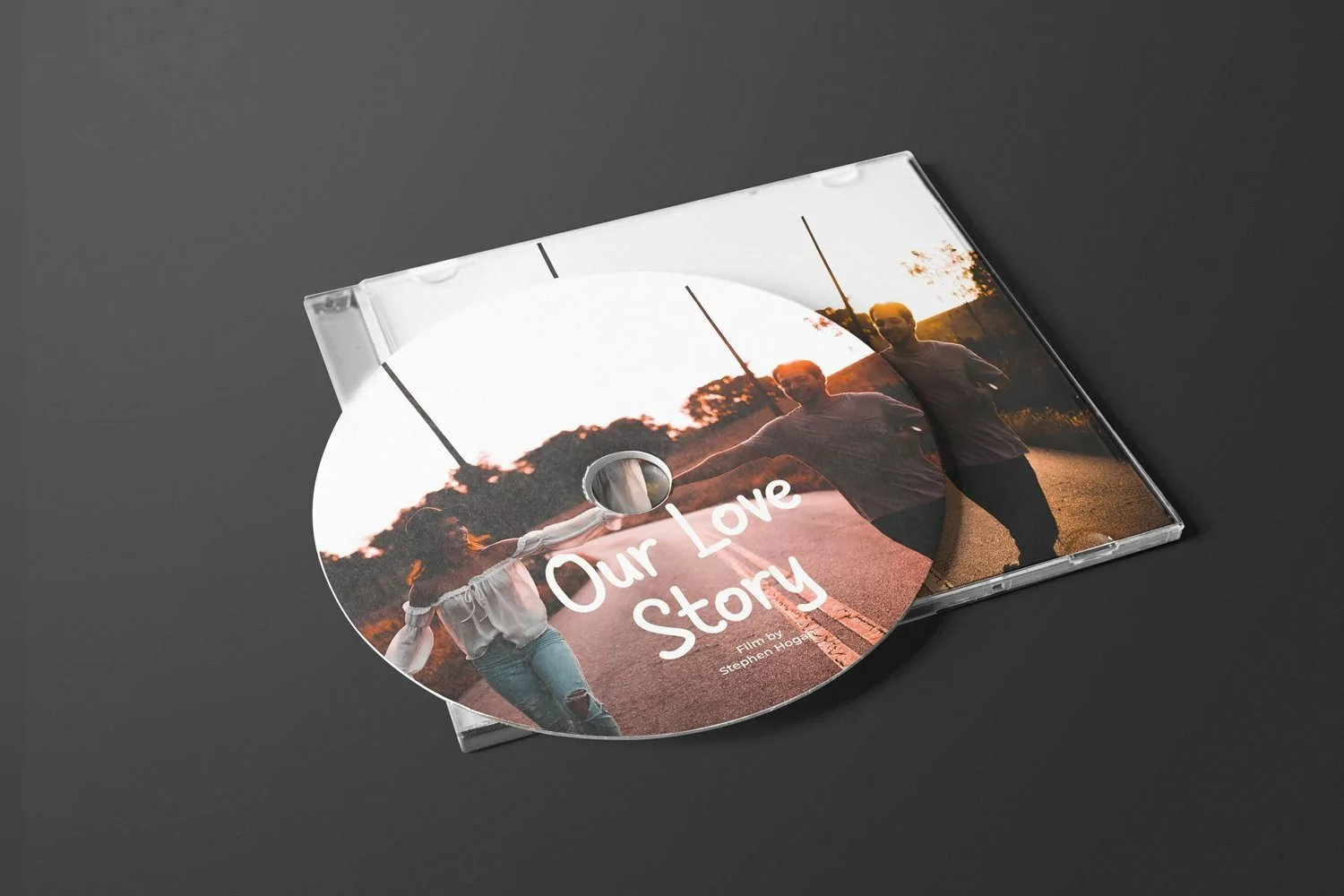
Web Font Volmuse
Volmuse is a display typeface. Perfect for display, poster, quotes, business card, print, branding, merchandise, packaging and many more.